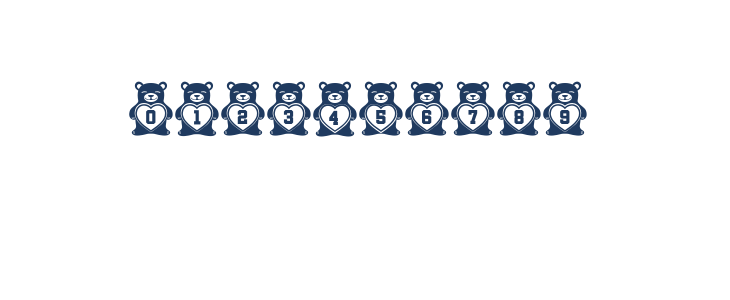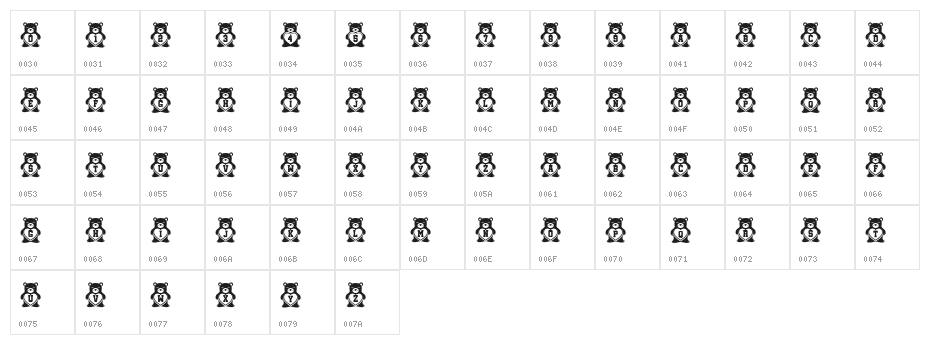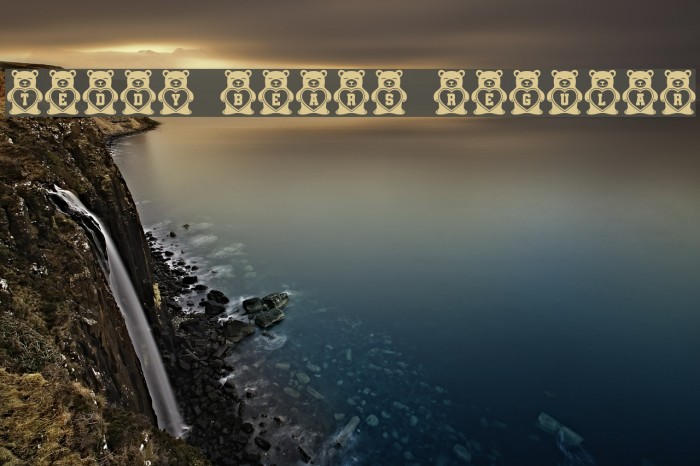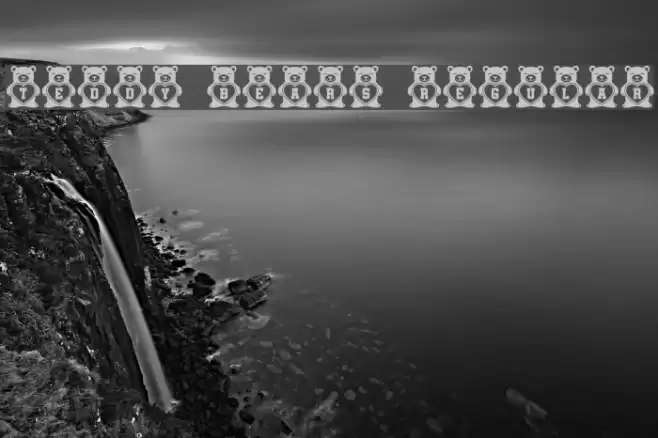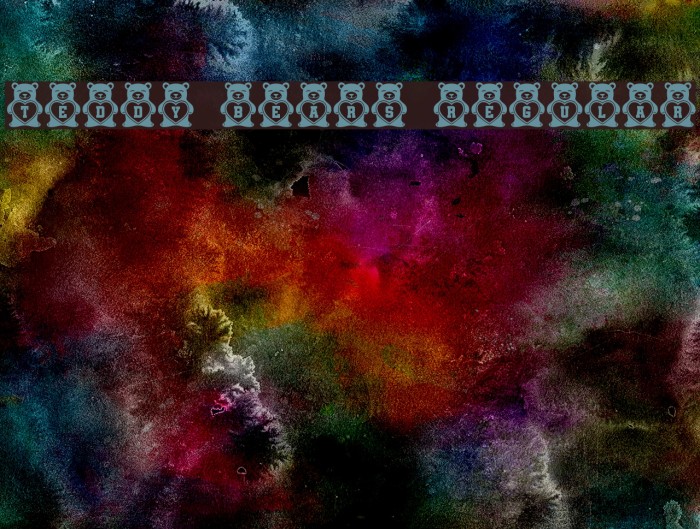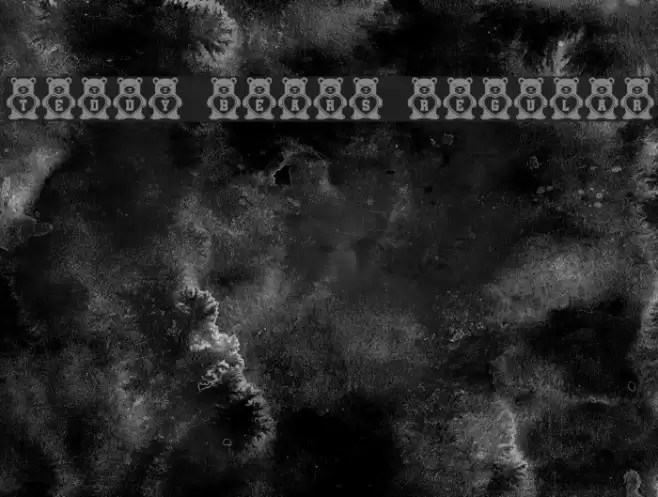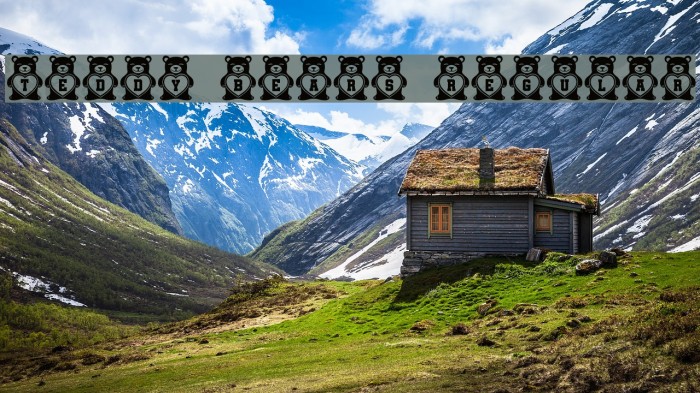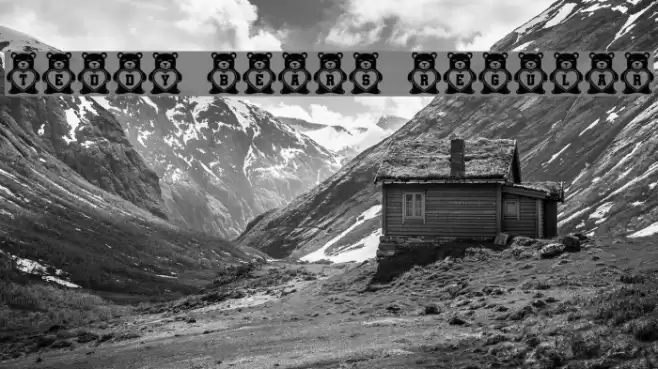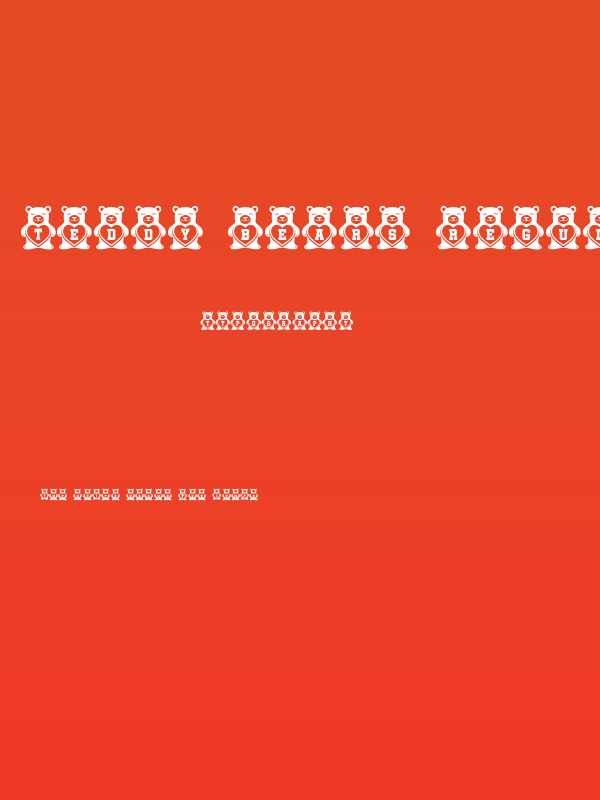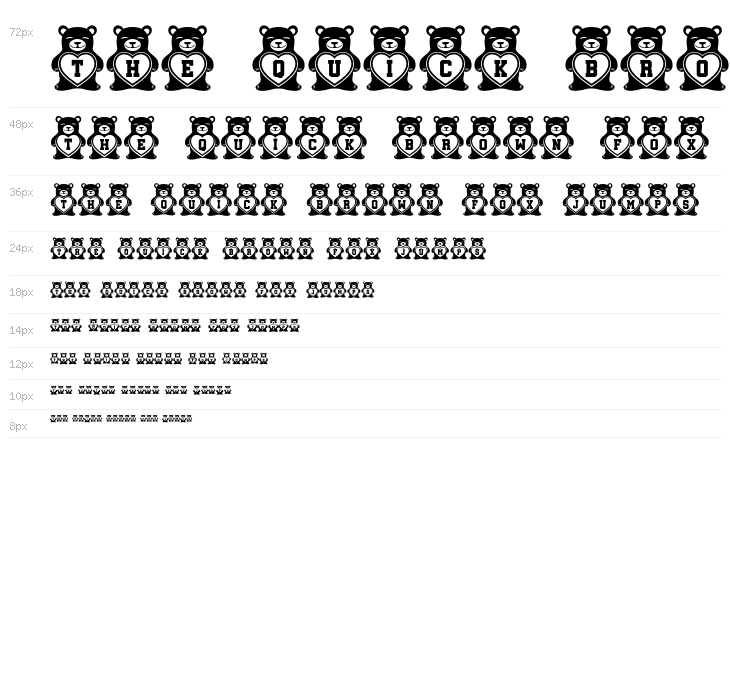
Teddy Bears Regular Font
Teddy Bears Regular Description
This playful and whimsical font features each character encased within a teddy bear shape, creating a unique and charming visual appeal. The letters and numbers are bold and clear, making them easily readable despite the decorative bear design. The font is perfect for children's projects, adding a fun and friendly touch to any design. Its distinctive style makes it stand out, capturing attention with its creative and imaginative presentation.
| Use Case | Logos, Headlines, Children's materials |
| Proposed Projects | Ideal for children's books, toy packaging, birthday invitations, and playful branding. |